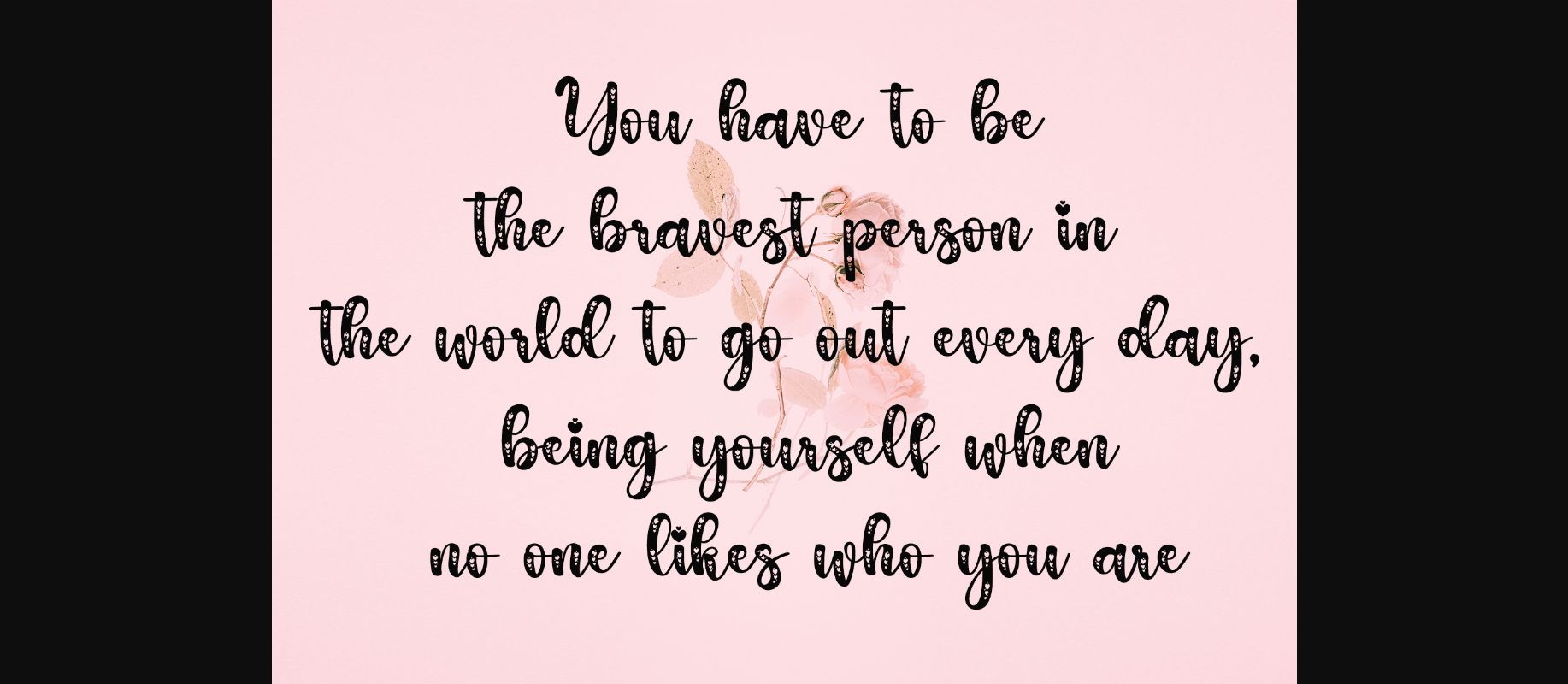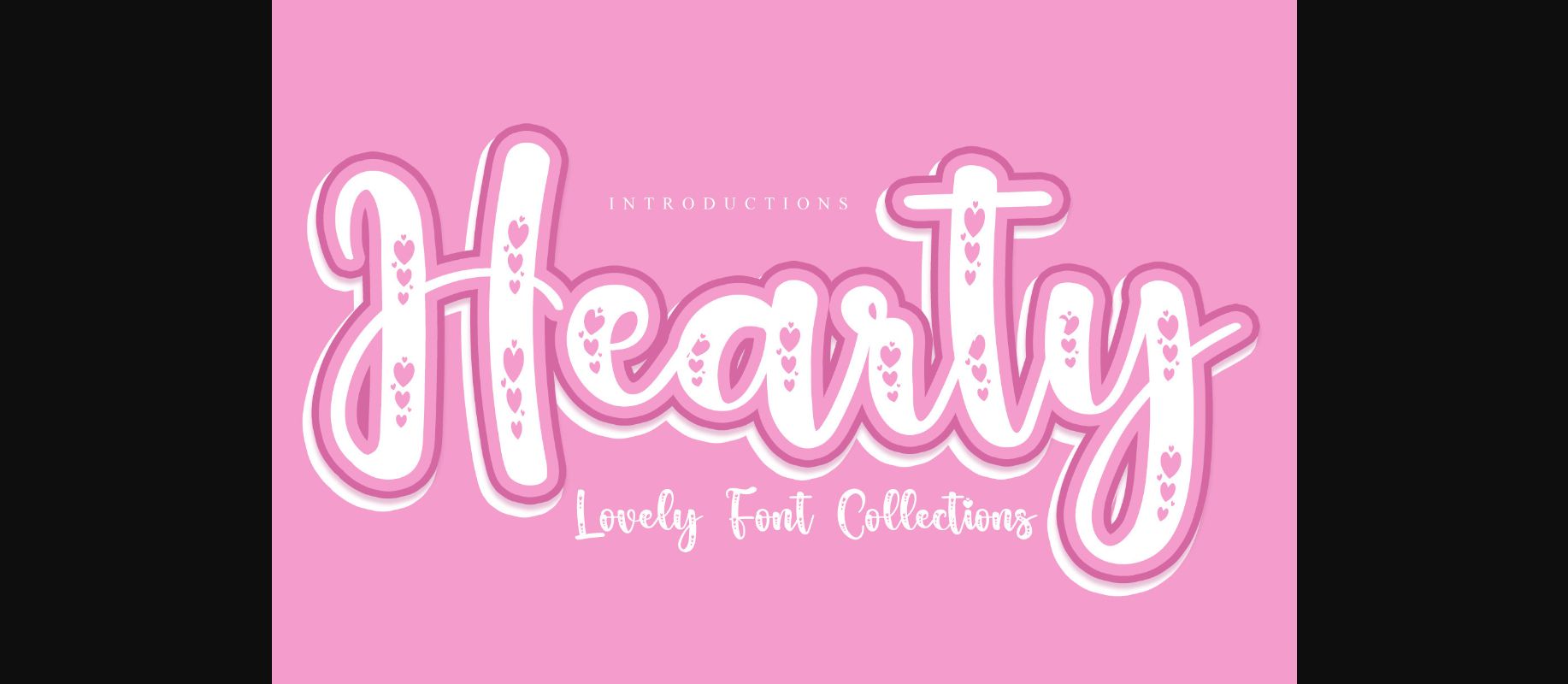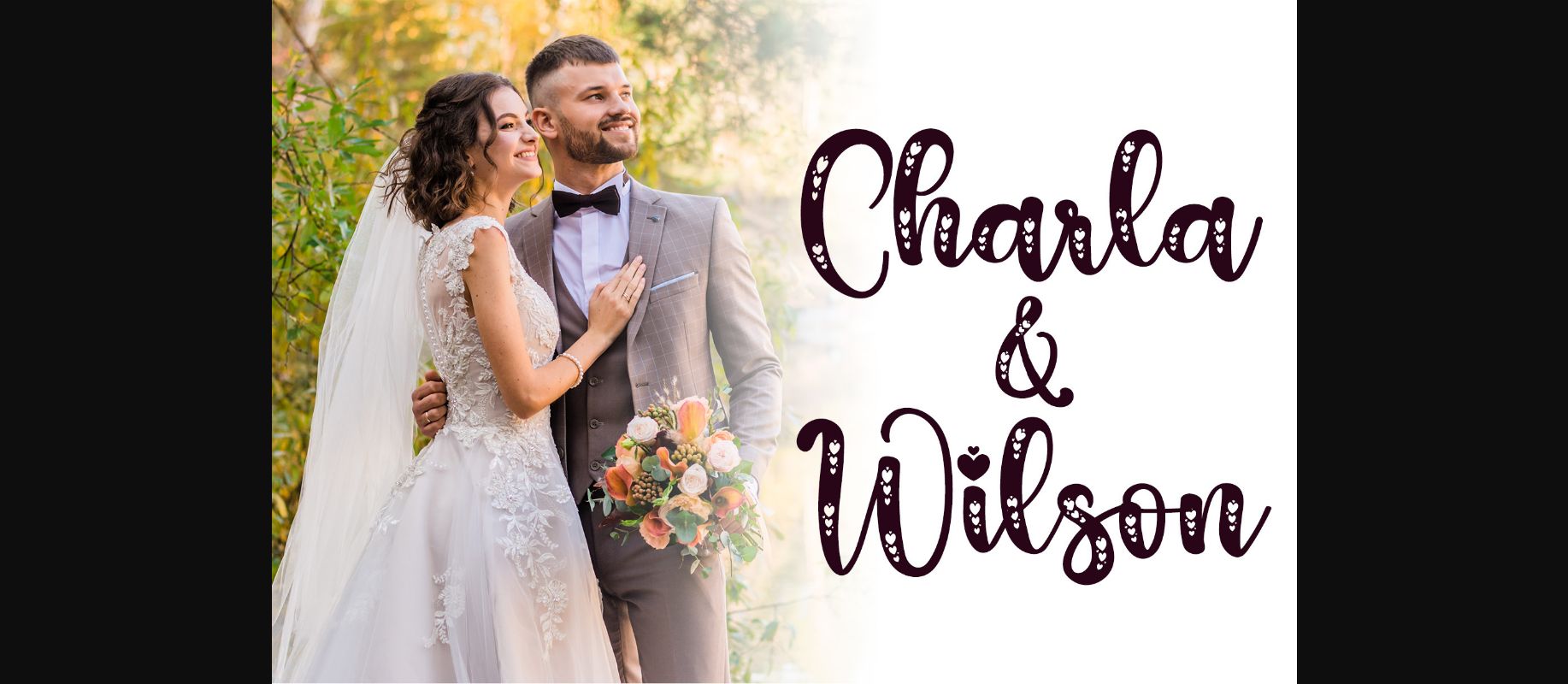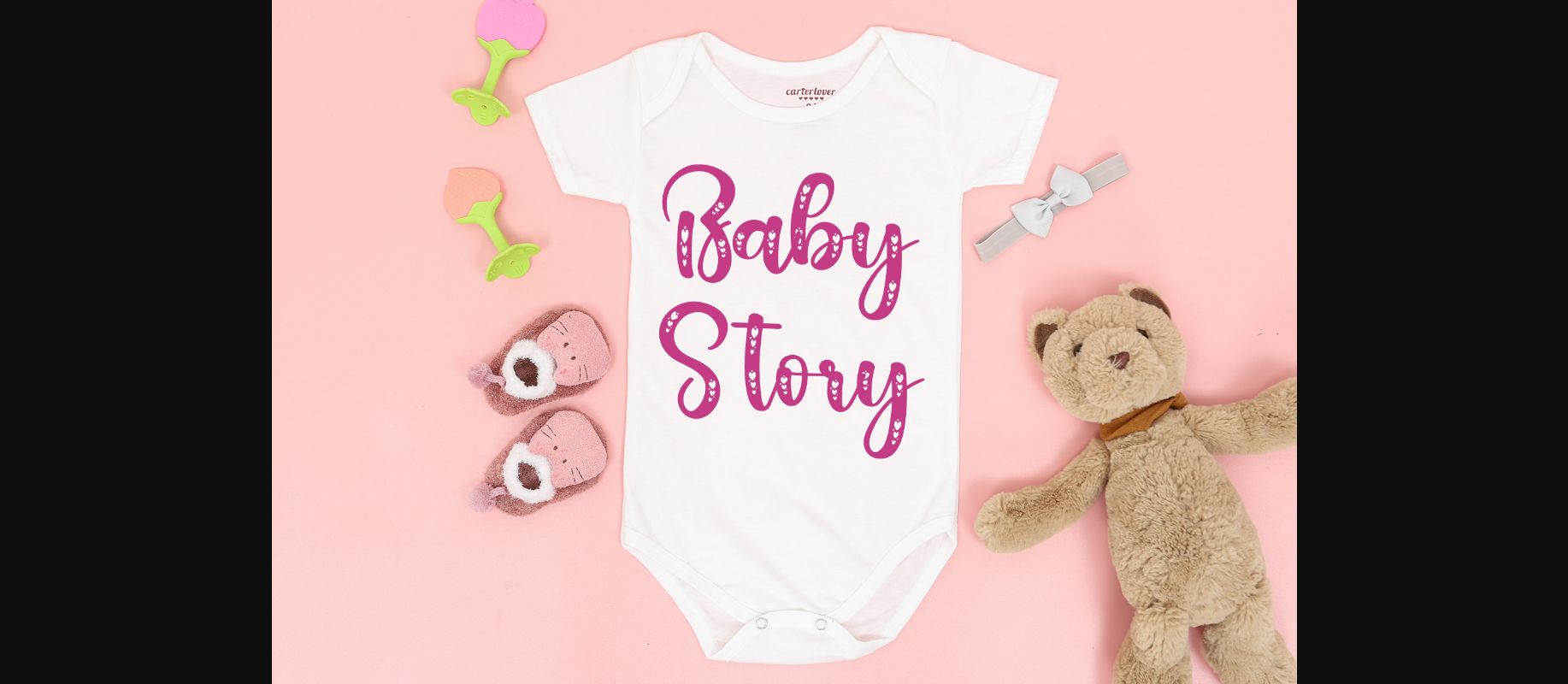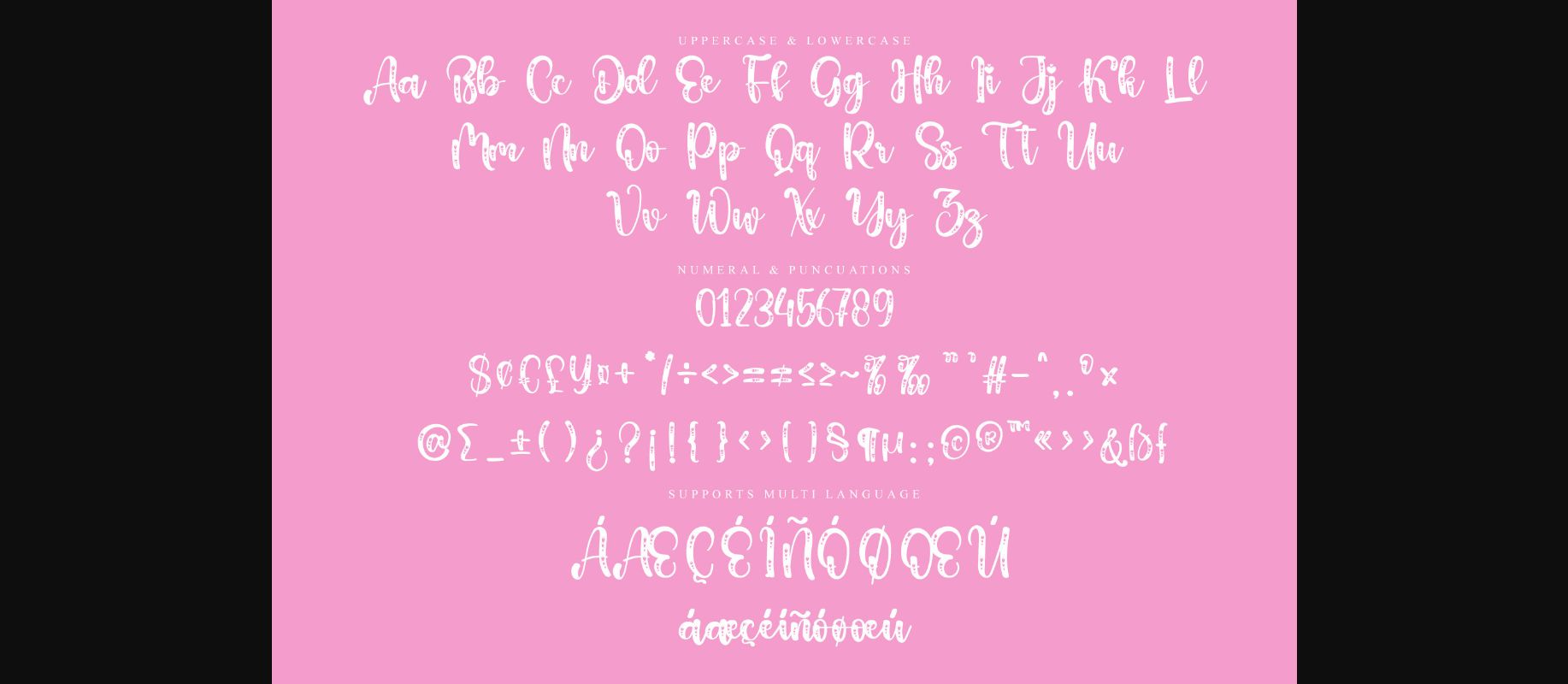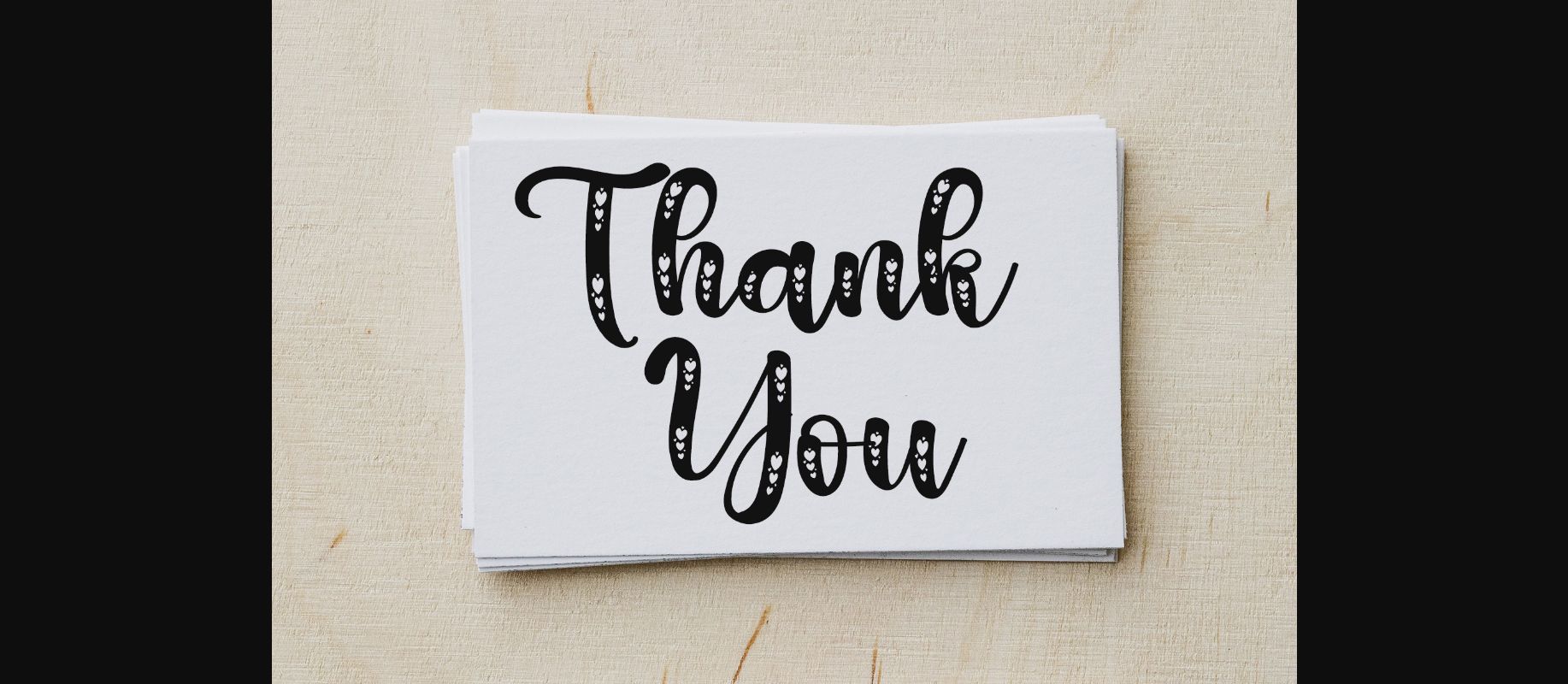
Hearty Font
About Hearty Font
Hearty is a sweet and cursive handwritten decorative font. This gentle font will look gorgeous on a variety of design ideas. It will add a joyful and romantic touch to each of your projects! Perfectly fit for branding, logo, wedding things, greeting cards, and more.